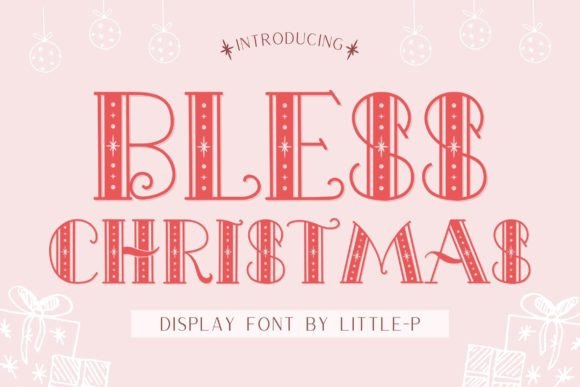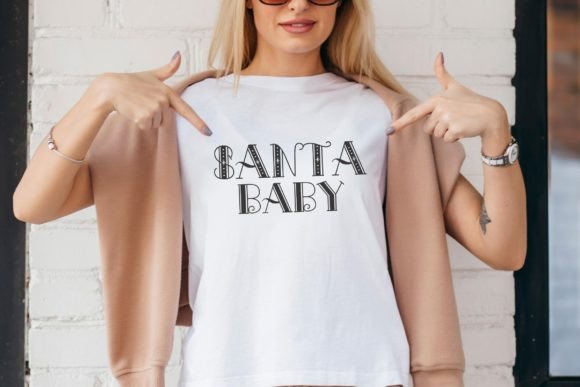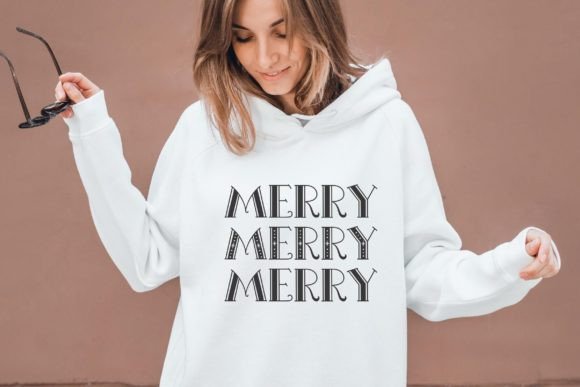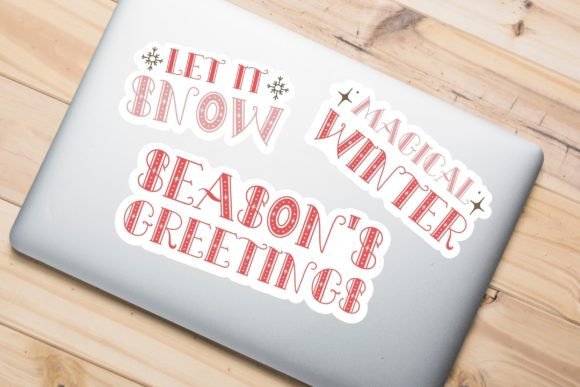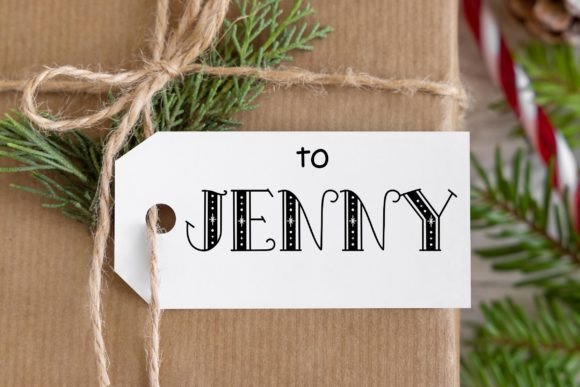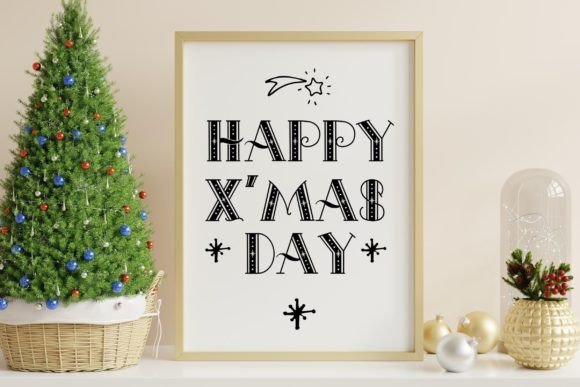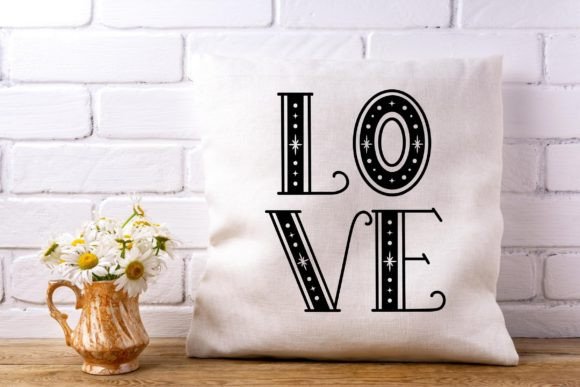
Blessed Christmas Font
Introducing “Blessed Christmas” the Christmas display font that brings a playful and festive spirit to your designs. With its unique feature of star details in uppercase characters, you have the creative freedom to mix and match between uppercase and lowercase letters to craft new and exciting styles. “Blessed Christmas” font is the perfect choice for infusing the holiday season with joy and creativity, whether you’re designing cheerful shirts, delightful tote bags, festive mugs, charming stickers, memorable logos, engaging social media content, attractive packaging, inspired posters, heartwarming quotes, or captivating wall art.